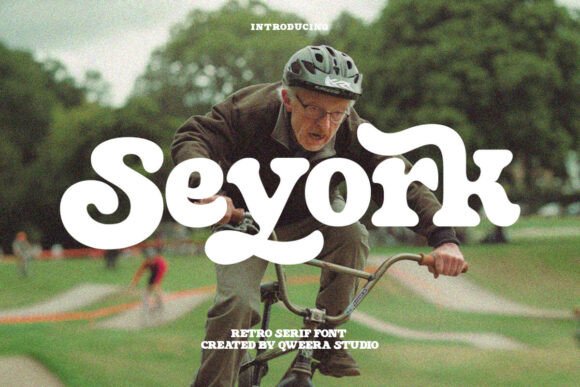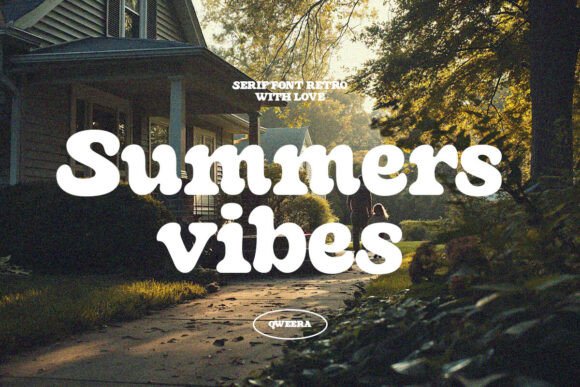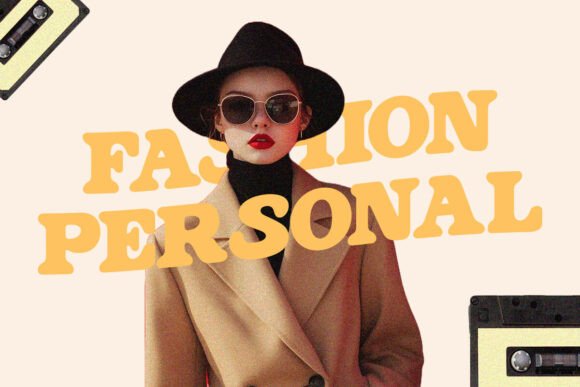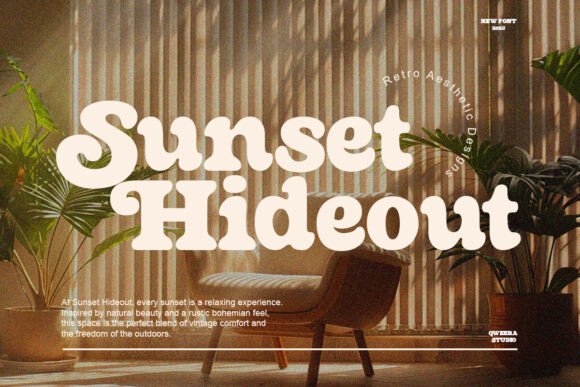
Seyork Font: Bold Retro Serif for Eye-Catching Logo Design
About the Seyork Font
Unleash your creativity with Seyork Font, a versatile font perfect for a wide range of applications. Seyork is more than just a font—it’s a bold fusion of modern design and retro charm, crafted to bring a unique and stylish edge to your creative projects. With its regular and italic versions, Seyork offers versatility and sophistication, making it the perfect choice for branding, logo design, packaging, posters, and more. Whether you’re crafting a vintage-inspired logo or designing a standout poster, this font ensures your work radiates confidence and retro flair.
Seyork Font Usage Examples
Seyork Font Example